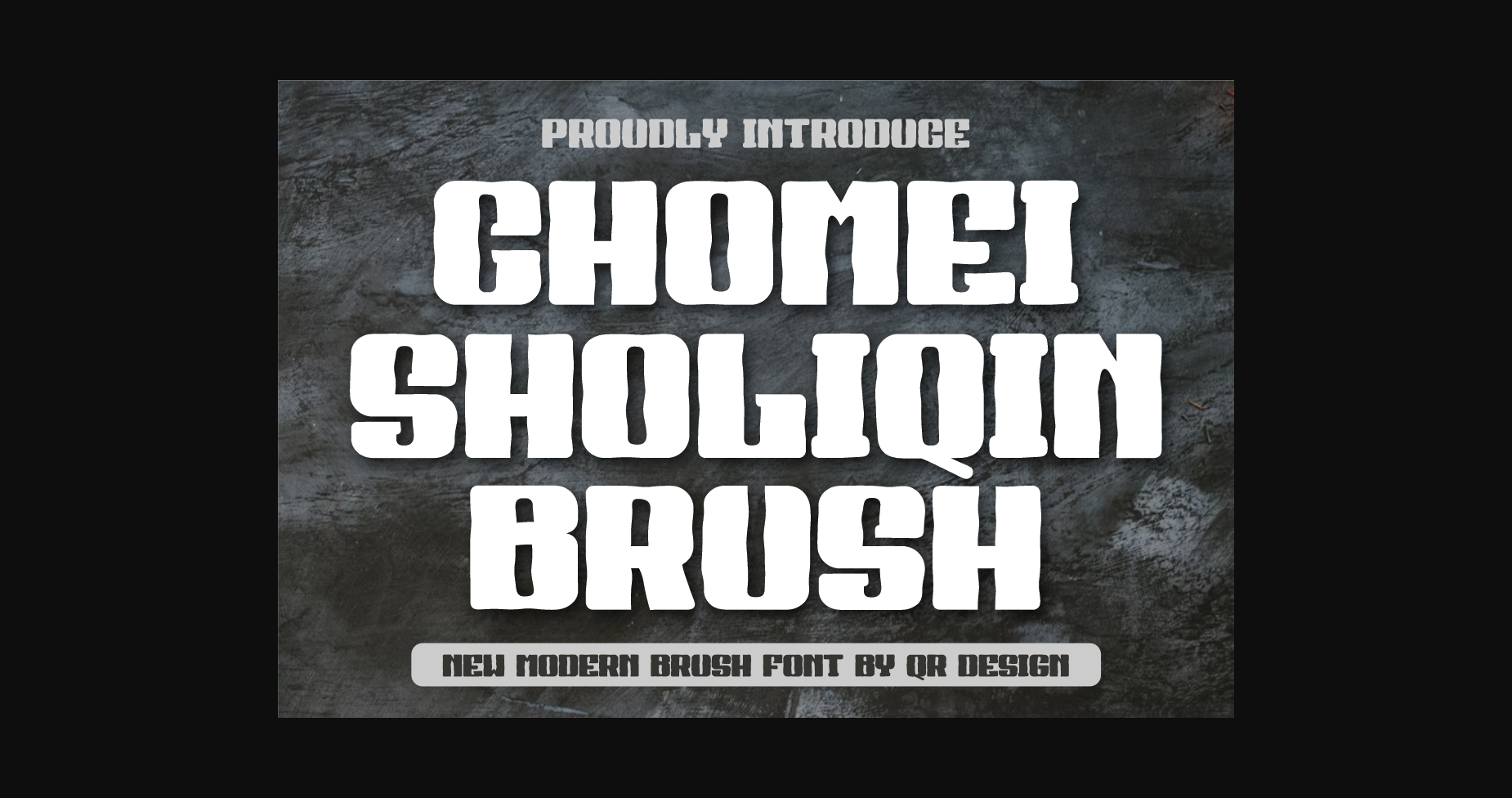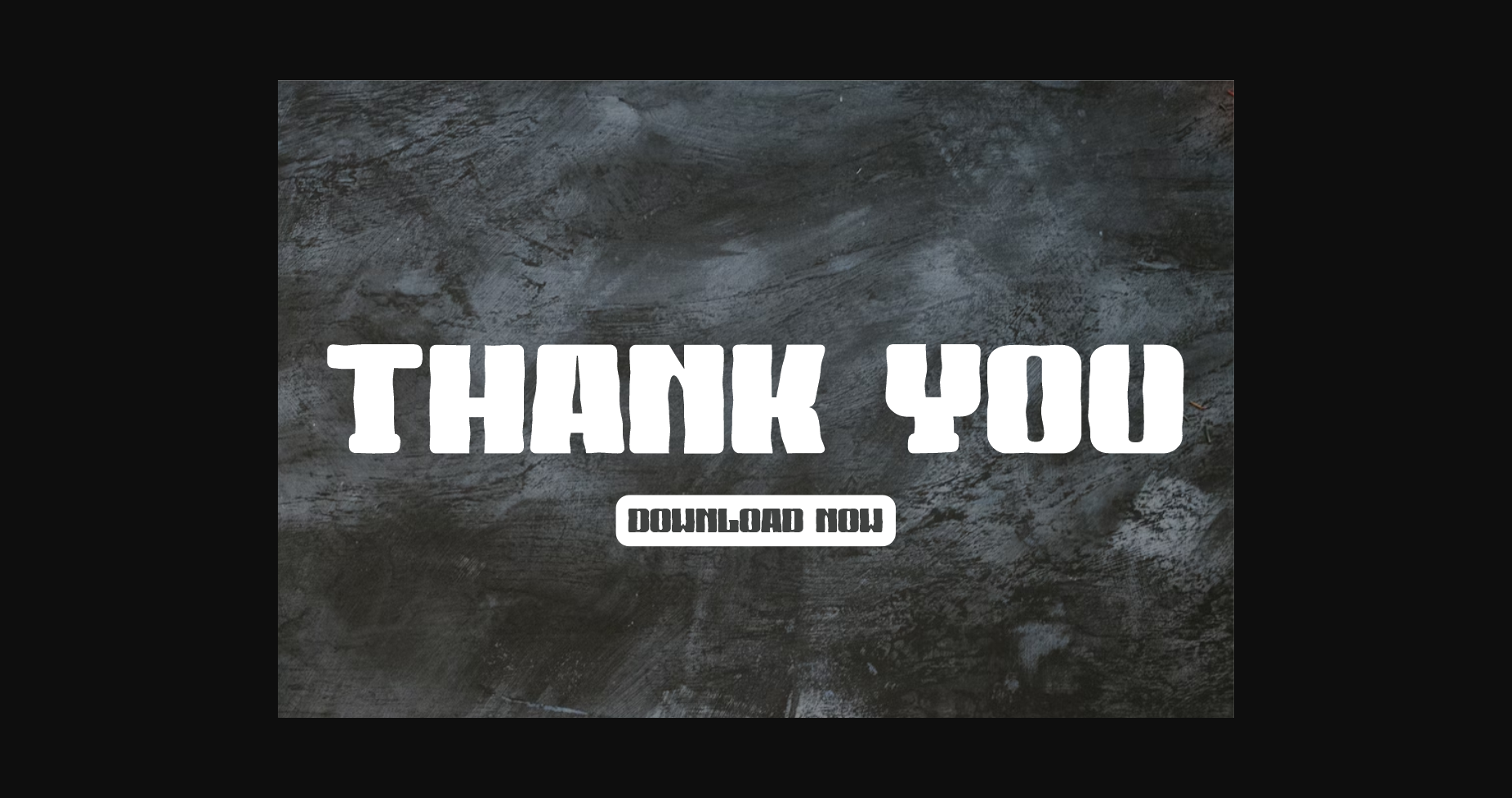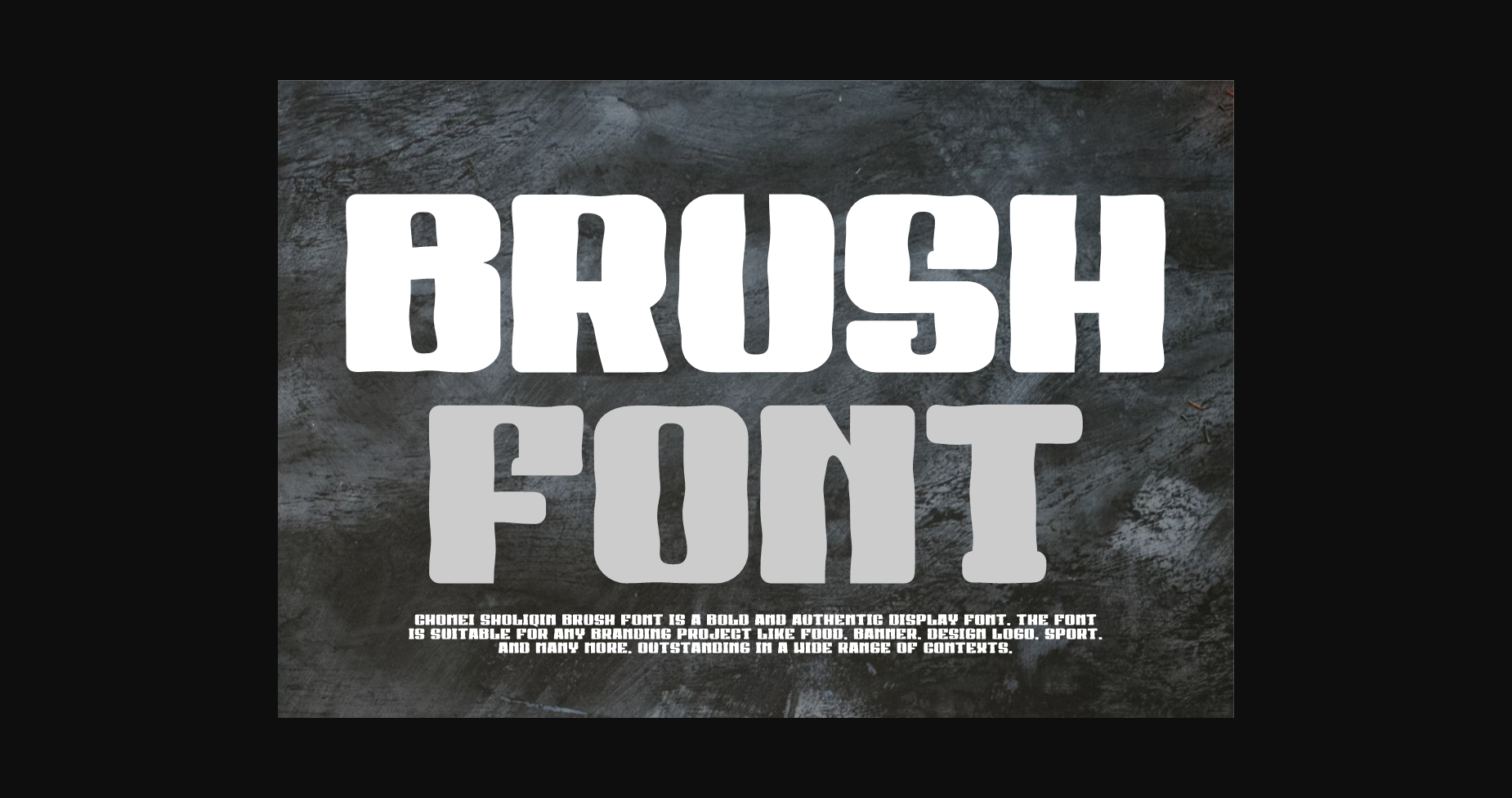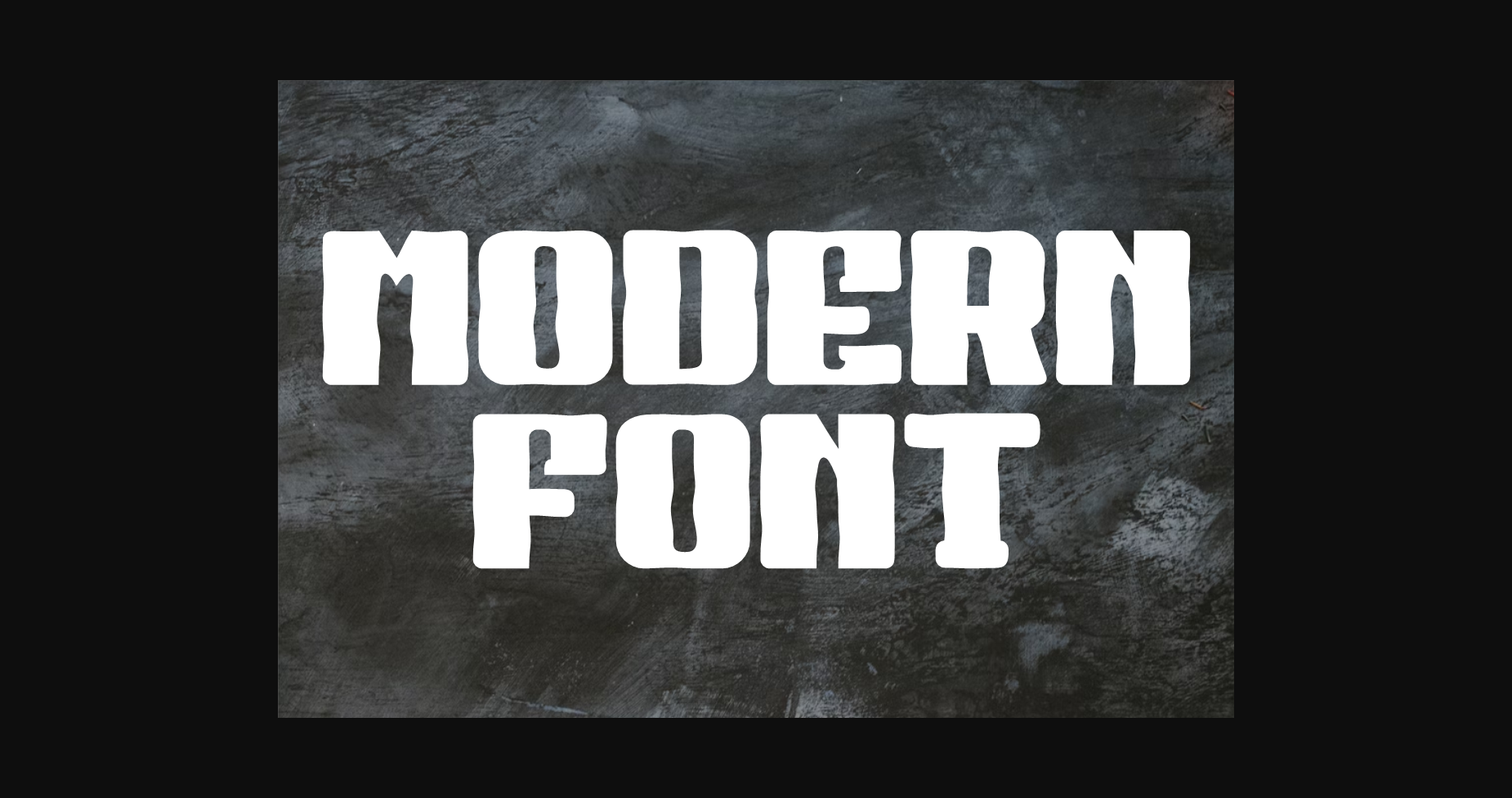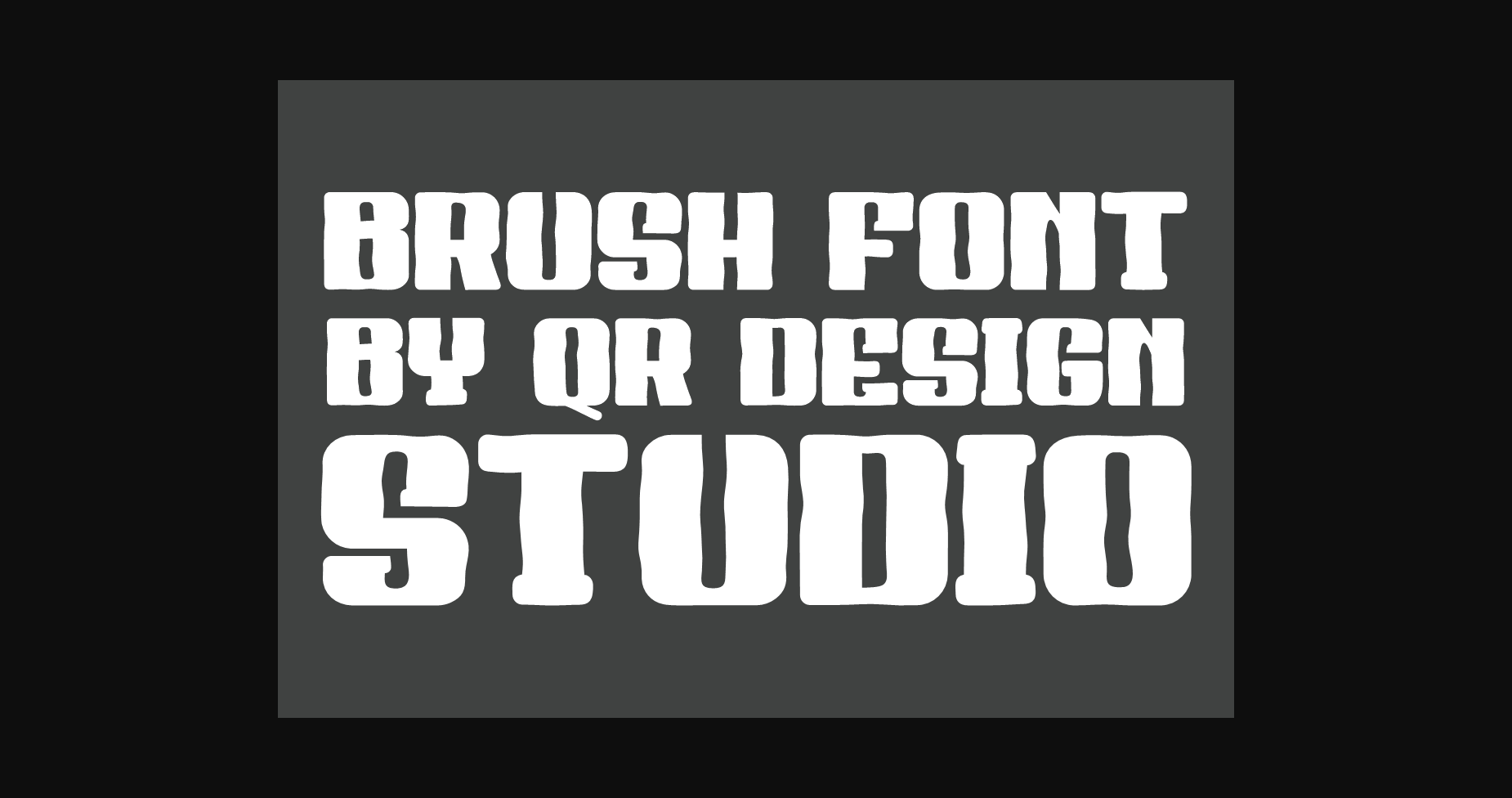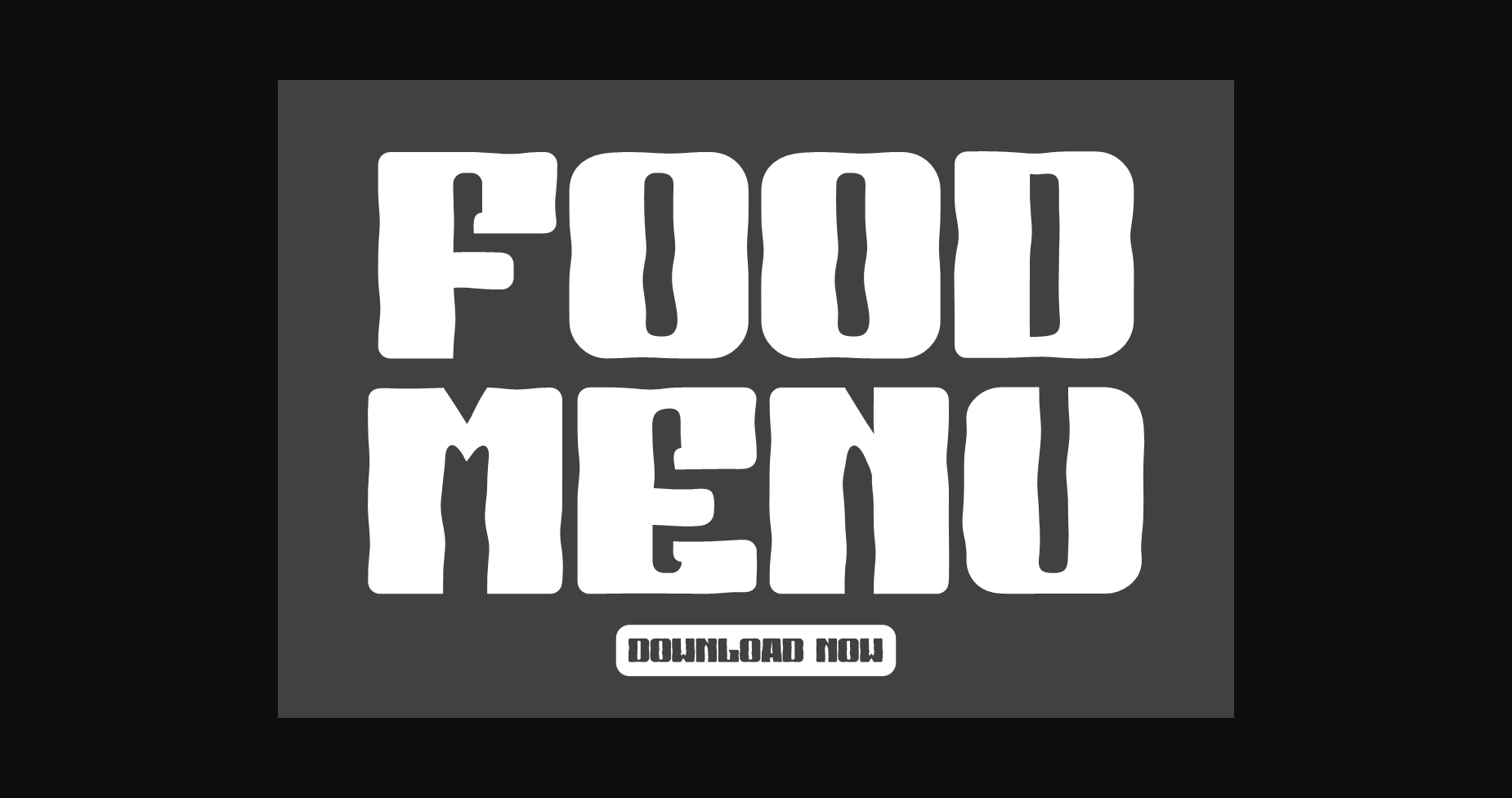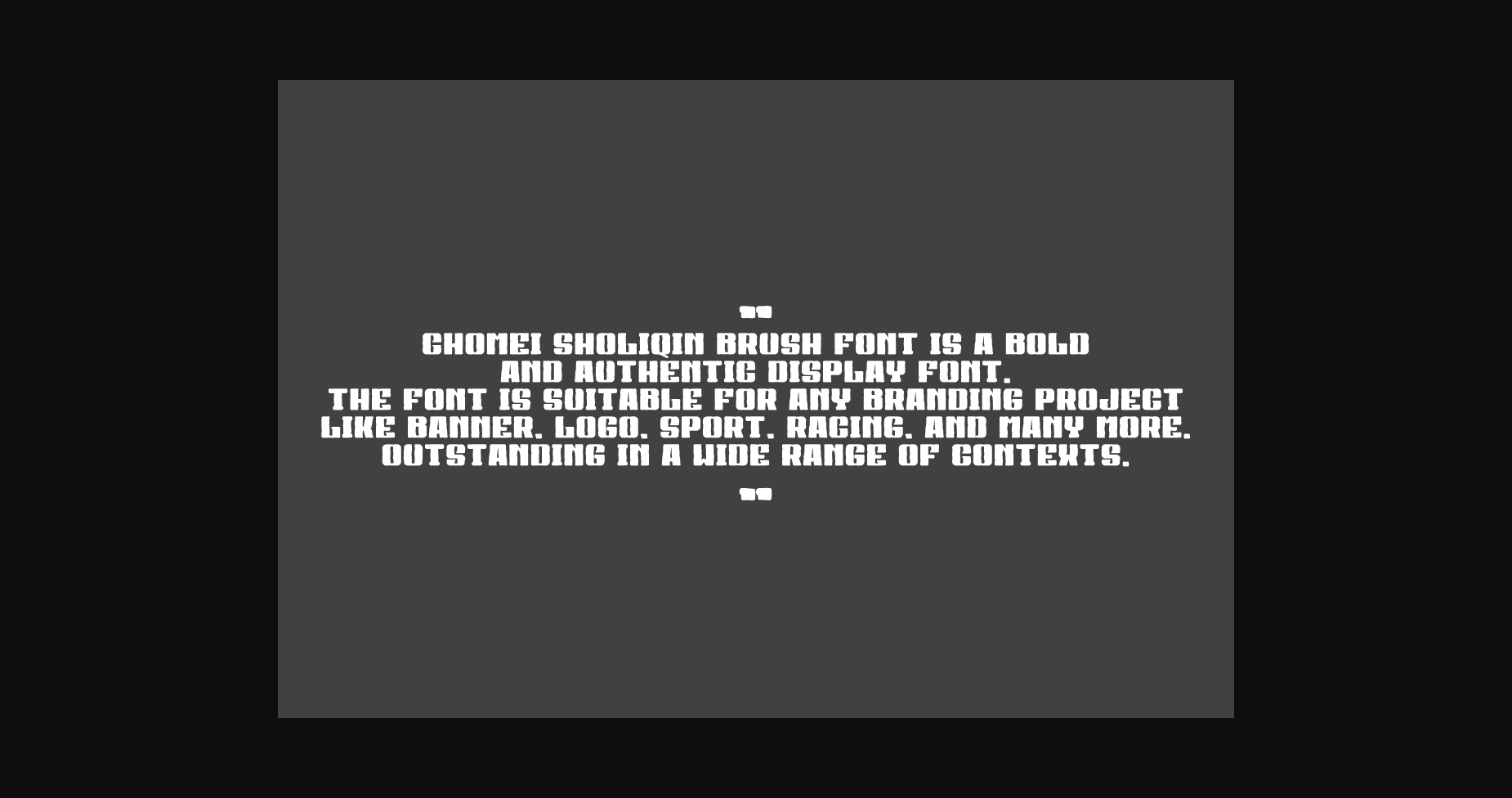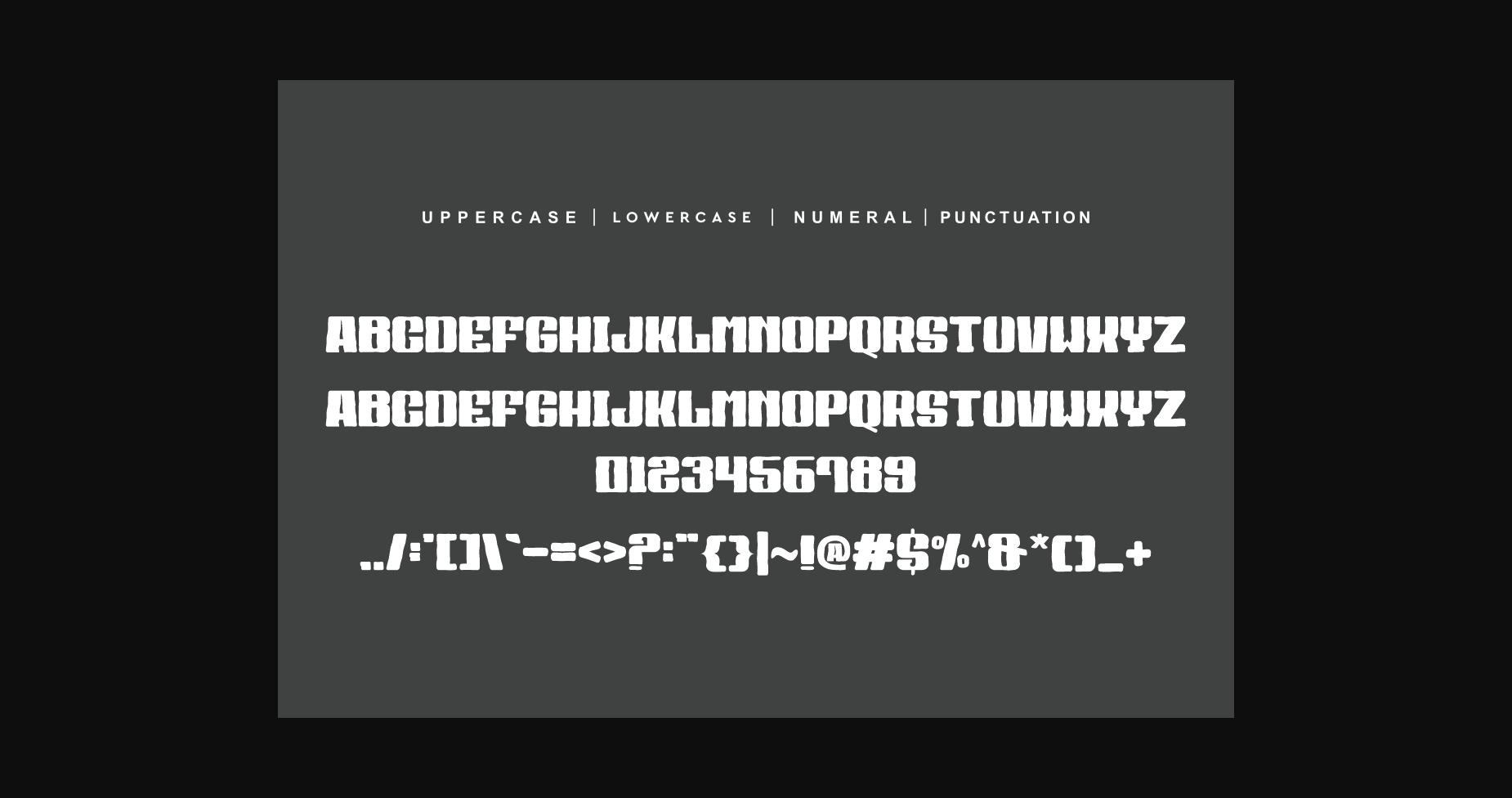
Chomei Sholiqin Brush Font
About Chomei Sholiqin Brush Font
Chomei Sholiqin Brush is a strong and assertive sans serif font that demands attention. Its bold and thick lettering makes a powerful statement, perfect for headlines or titles. The sleek, modern design adds an element of sophistication, while still maintaining a sense of approachability.